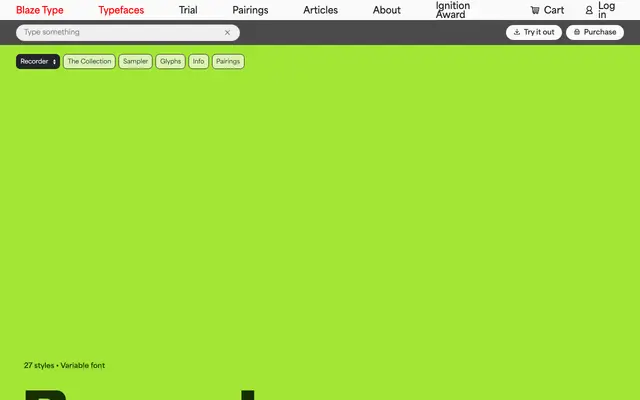
Recorder
A 27-style variable display family from Blaze Type, built across four structural subfamilies with forward and backslanted cuts alongside the upright.
Spanning Basic, Capsule, Mixed and Outline subfamilies, Recorder offers six weights from Regular to Black each available in upright, slant and backslant cuts. The variable font format ties the full range together, and the structural variation between subfamilies gives the collection genuine breadth for display and editorial work. The backslanted cuts in particular give it an unusual directional energy that sets it apart from straightforward geometric sans releases.
Recorder is a display-oriented geometric sans with distinctive structural variants including capsule, mixed and outline treatments, plus forward and backslanted cuts that push it firmly into the display category.